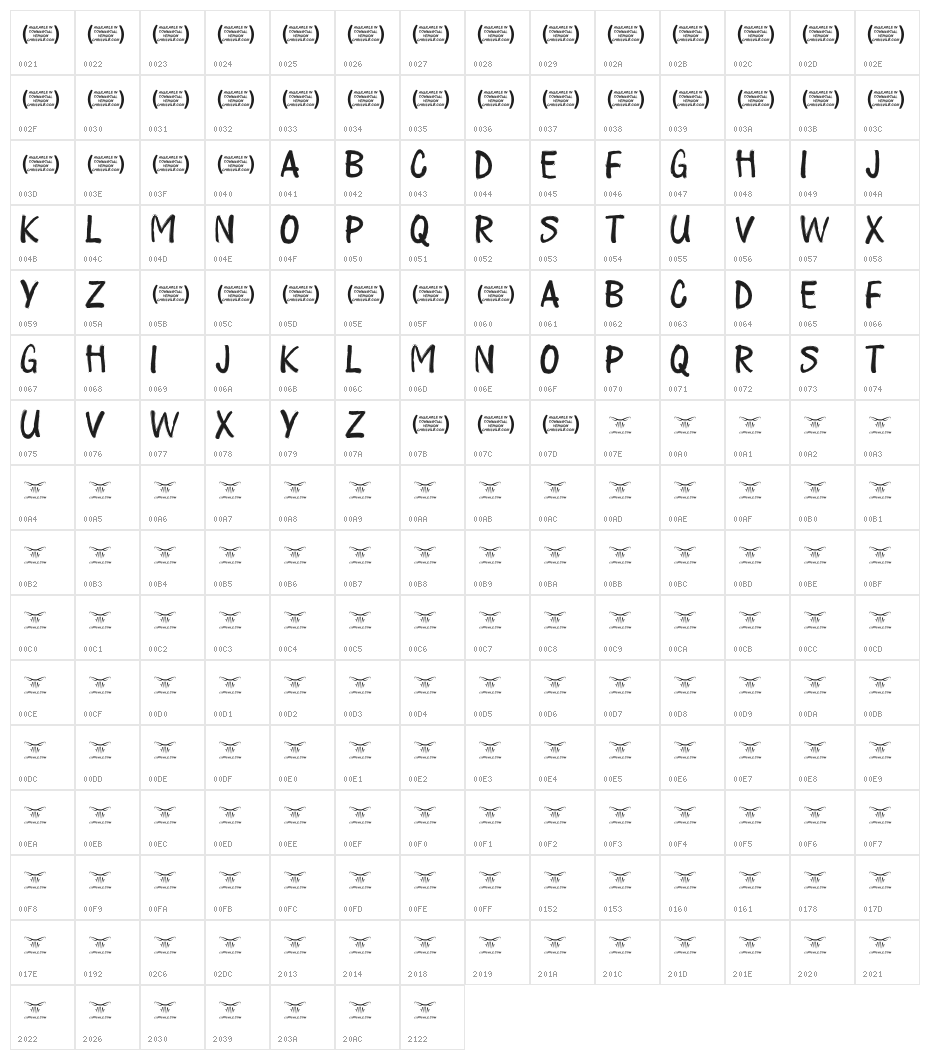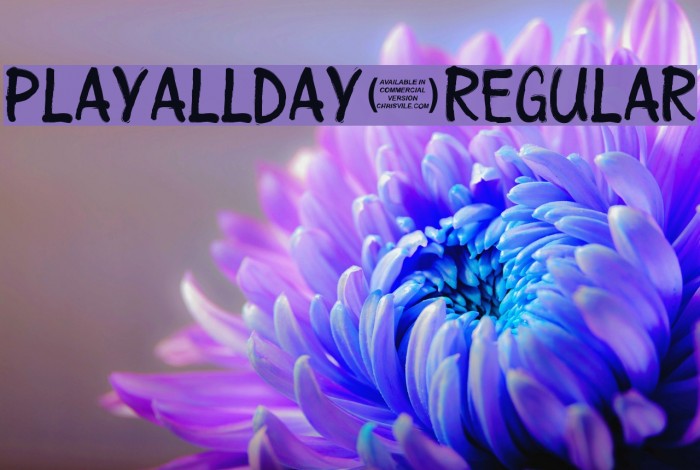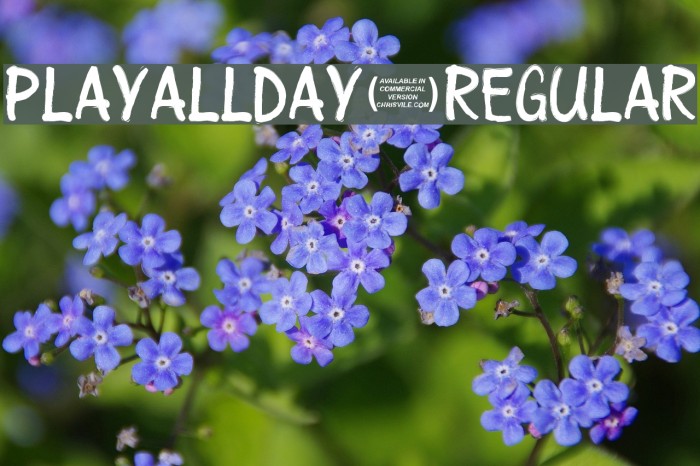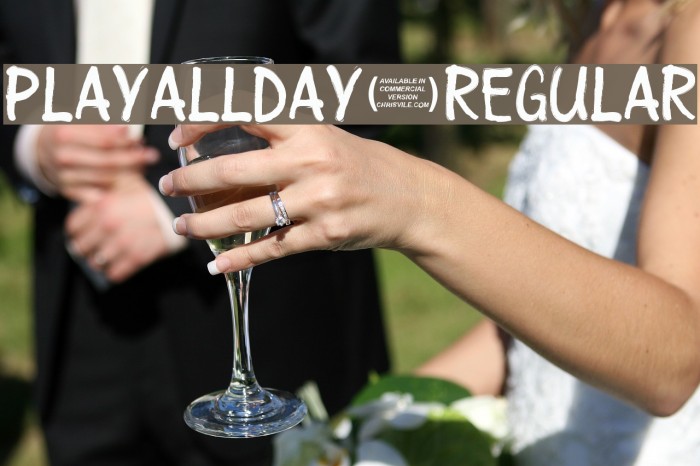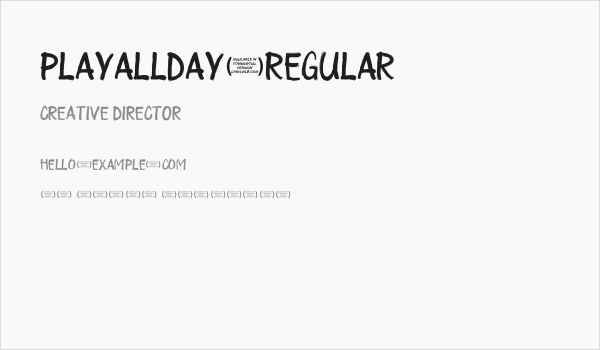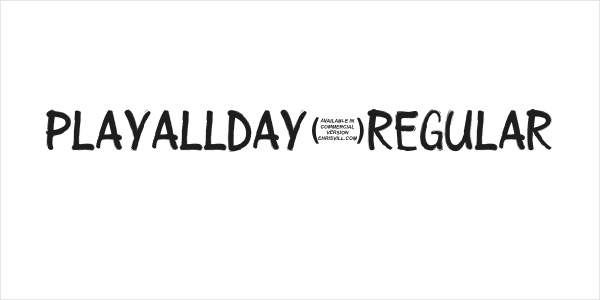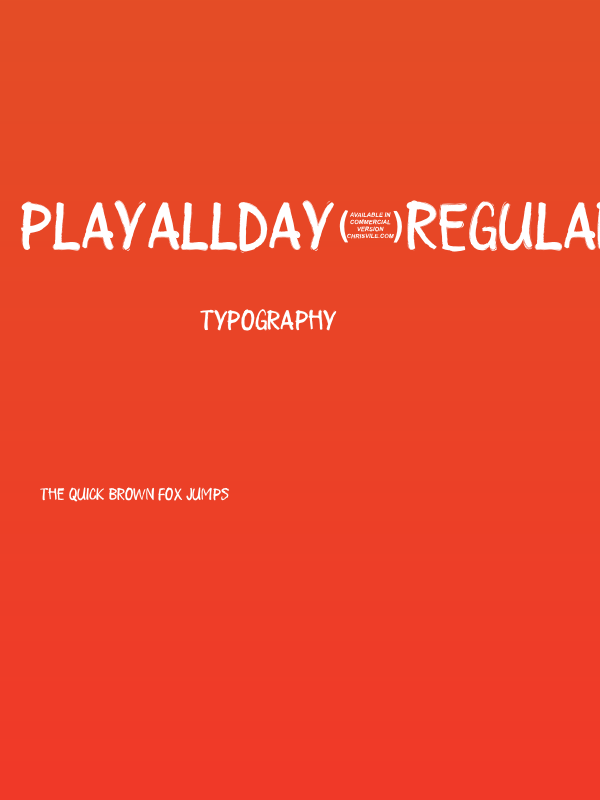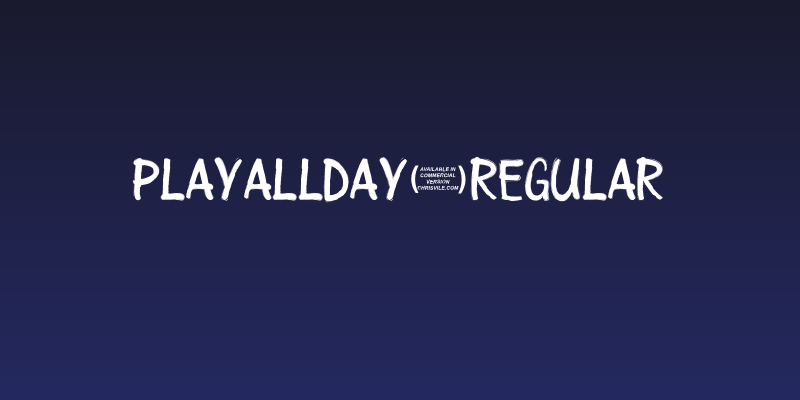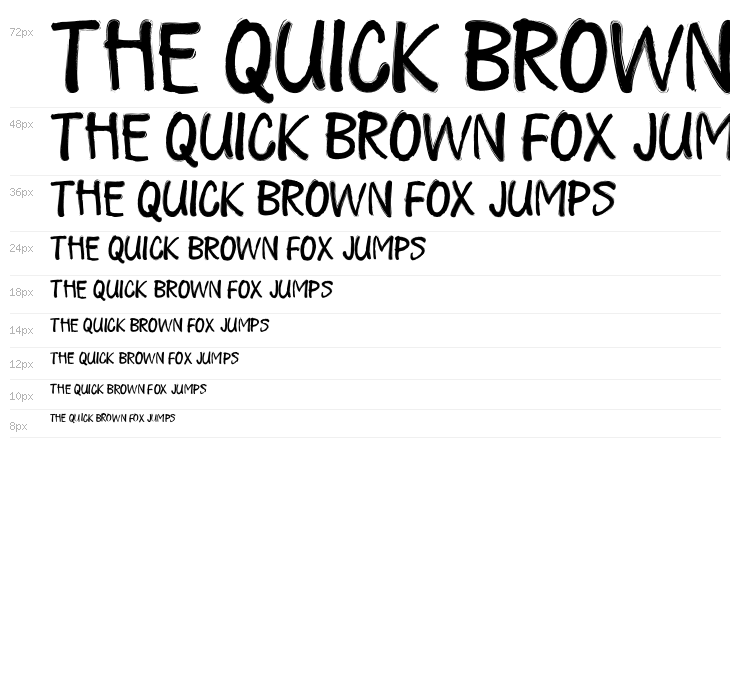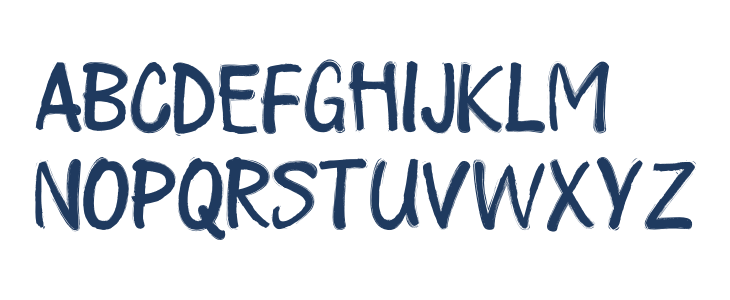
Playallday-Regular Font
Playallday-Regular Description
This font features a bold and expressive brush style, characterized by its dynamic and energetic strokes. The letters have a hand-painted appearance, with varying thickness that adds a sense of movement and vitality. The uppercase letters are bold and prominent, making a strong visual impact, while the lowercase letters maintain the same energetic style. The numbers and special characters are consistent with the overall design, ensuring a cohesive look across all text elements. This font's unique style makes it ideal for creative and artistic projects, where a bold statement is desired.
| Overall Style | Modern, Artistic |
| Proposed Projects | Ideal for posters, branding, packaging, and social media graphics where a bold and artistic touch is needed. |